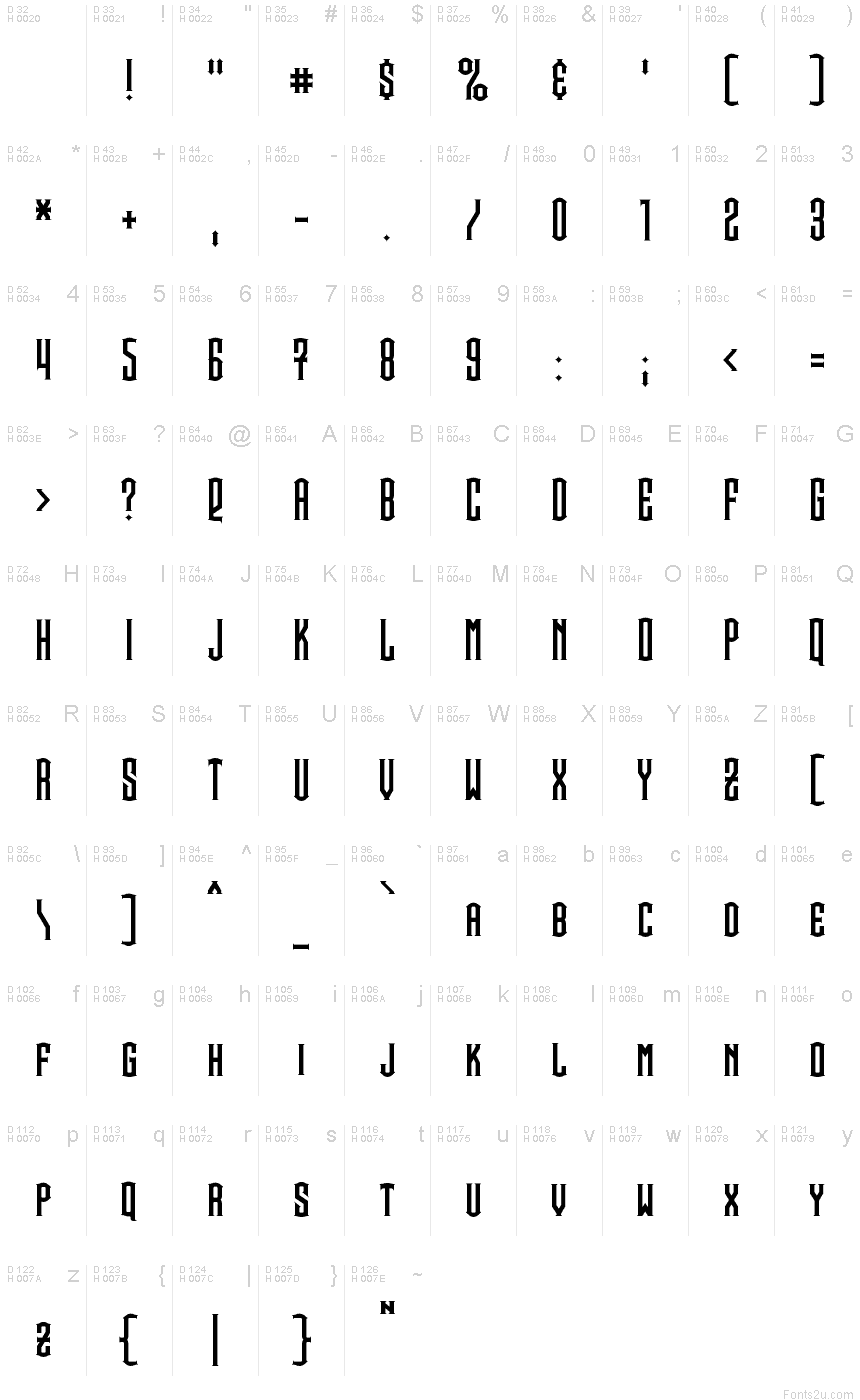
Steamwreck by Neale Davidson is a free condensed display serif shaped by the tall, narrow proportions and forked ornament of nineteenth-century show lettering. Its capitals are dense, angular, and sharply theatrical.
Audiences drawn to heavy music, western entertainment, and horror will immediately recognize its severe manner in posters, album covers, and event branding. The packed vertical forms lend titles the impact of carved signage and suit projects built around spectacle, menace, or historical drama with a dark, rough carnival atmosphere. Sharp notches and flared feet also echo engraved borders, tattoo flash, and the pointed ornament of vintage fairground graphics.
Steamwreck includes a fill alphabet, extended punctuation, the euro symbol, and regular, bold, italic, and bold italic styles.